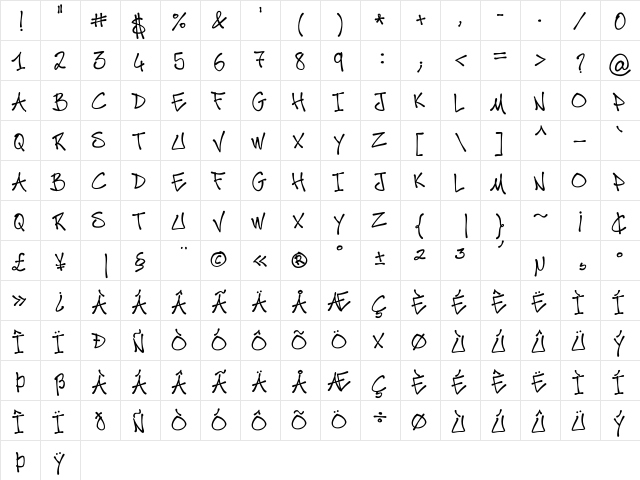
Posca Mad Thrasherz Regular
| Designer | Damien Gosset |
Design Context for Posca Mad Thrasherz Typeface
Posca Mad Thrasherz is a composed and adaptable typeface that performs quietly and consistently across a wide range of design contexts.